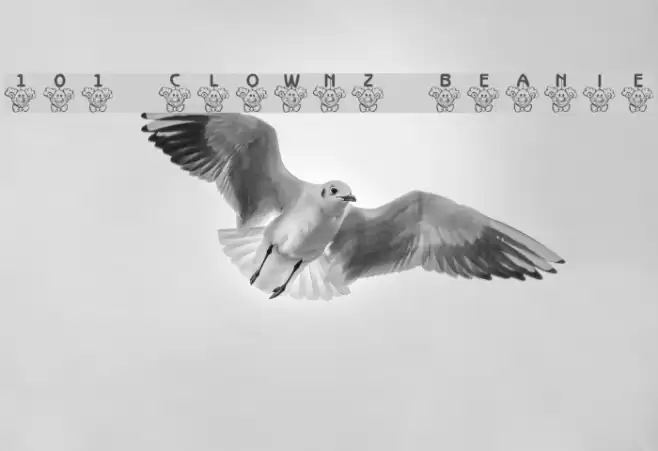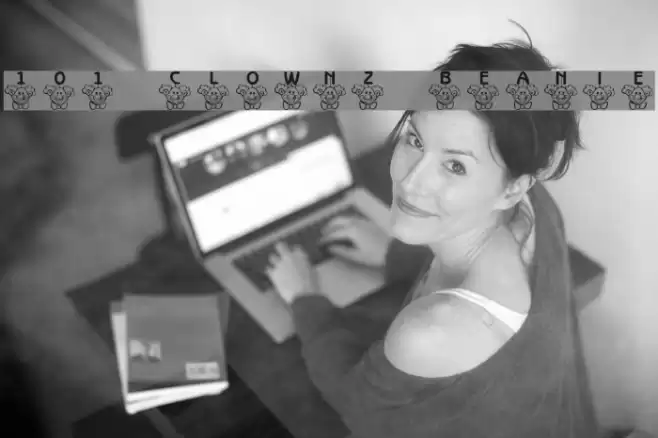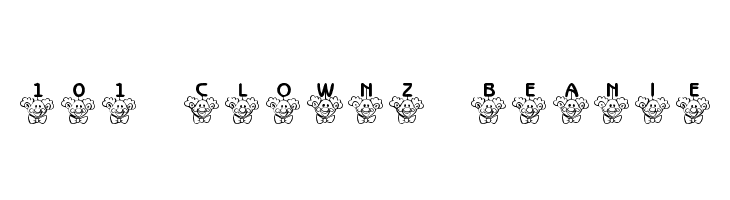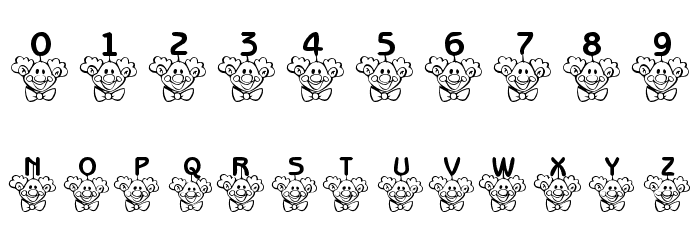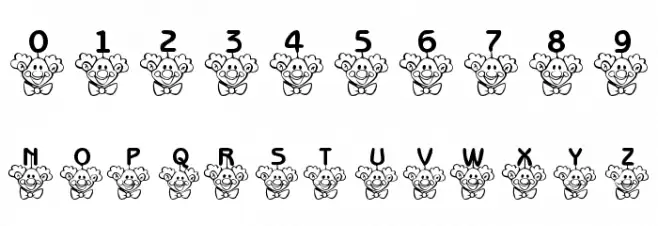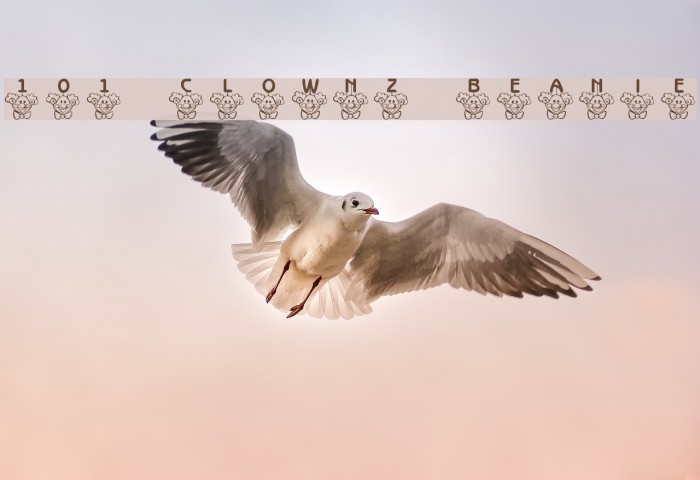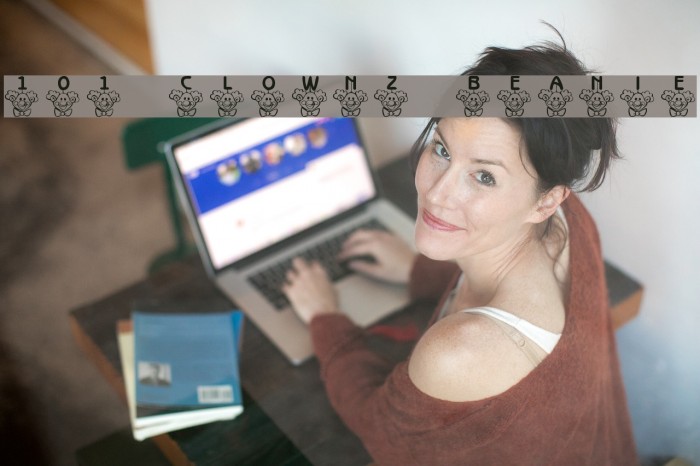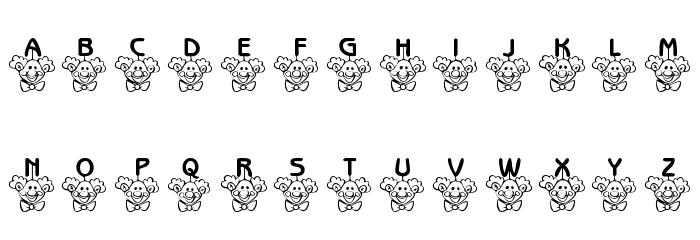
101! ClownZ Beanie Font
101! ClownZ Beanie Description
This font is a playful and whimsical design that incorporates clown faces as part of each character. The letters and numbers are bold and geometric, with a consistent thickness that gives them a strong presence. Each character is accompanied by a cartoonish clown face, adding a unique and entertaining element to the font. The style is highly decorative, making it suitable for fun and informal projects. The font maintains a consistent alignment and spacing, ensuring readability despite its playful nature.
A playful font featuring bold letters with clown faces, perfect for fun projects from Uncategorized fonts.
- Proposed Projects: Ideal for children's party invitations, circus-themed events, playful branding, and any project requiring a whimsical touch.